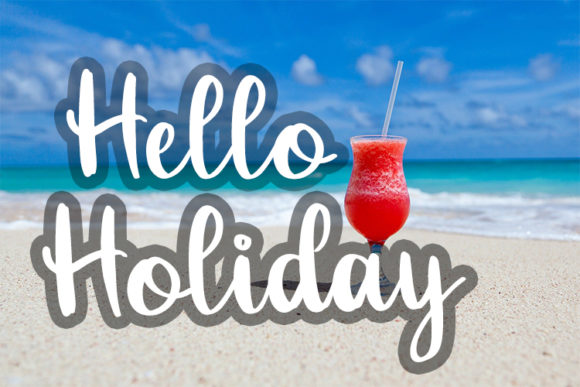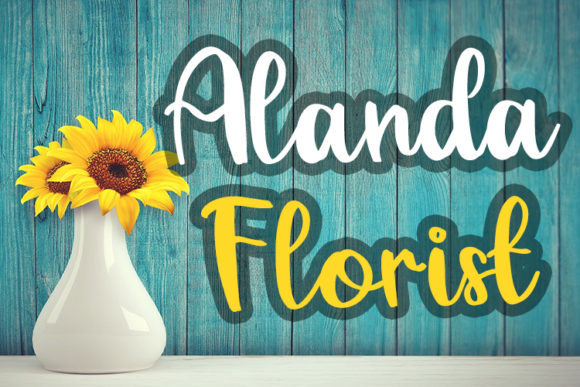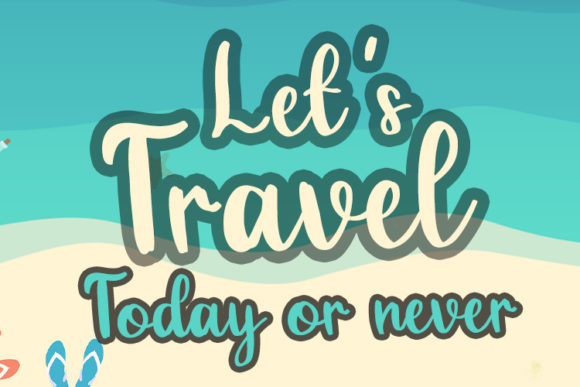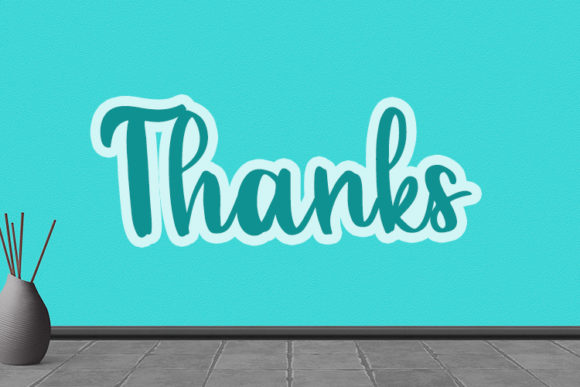
Unlock the Magic of Bluemoon Font
There’s nothing quite like the feeling of being inspired by a new font – the spark of creativity, the rush of ideas, and the excitement to bring them to life. It’s moments like these that remind us why we love designing in the first place. And for us, that spark is often ignited by the whimsical charm of handwritten fonts like the Bluemoon Font.
With its flowing curves and sweet style, the Bluemoon Font is a versatile delight that’s perfect for adding a touch of personality to your designs. Whether you’re working on a wedding invitation, a children’s book, or a social media campaign, this font’s soft, rounded characters are sure to bring a smile to your face and a dash of creativity to your work.
For designers, the Bluemoon Font is a valuable addition to any toolkit – a reliable companion that’s always up for a creative challenge. So why not give it a try and see where the magic of this charming font takes you?
Key Features of Bluemoon Font
- Font Family: Bluemoon Font is a unique, handwritten font with a dreamy and elegant feel.
- Unique Characteristics: Bluemoon Font features a distinctive, swirly design with flowing connections between letters, giving it a whimsical and artistic feel.
Bluemoon Font Review
I’ve had the chance to work with Bluemoon Font, and here’s my honest review.
- ✨ Elegant and sophisticated design, perfect for luxury brands and high-end projects.
- ✨ Excellent legibility, making it suitable for both print and digital applications.
- ✨ Customizable font weights, allowing for flexibility in design.
- ✨ Supports a wide range of languages, making it a great option for global brands.
- ⚠️ Limited font styles and variations, which might limit its versatility.
- ⚠️ May not be suitable for casual or playful designs, as it has a more formal tone.
- ⚠️ Some users might find the font too ornate or distracting, especially in large blocks of text.
Overall, Bluemoon Font is a solid choice for high-end projects that require a sophisticated and elegant design. While it may have some limitations, its strengths make it a great option for brands looking to make a statement.
Alternatives to Bluemoon Font for Designers
Lato Font is a modern sans-serif typeface that is highly legible and versatile. It is ideal for use in body text, headings, and titles, and works well in both digital and print applications. Lato is a great alternative to Bluemoon Font as it offers a similar feel, but with a more modern and sleek aesthetic.
Comparison to Bluemoon Font: While Bluemoon Font has a more elegant and vintage feel, Lato Font is more modern and functional. Lato is also more legible at small font sizes, making it a better choice for body text.
Montserrat Font is a sans-serif typeface that is highly versatile and works well in a variety of applications, from body text to headings and titles. It has a strong, urban feel that is perfect for use in modern designs. Montserrat is a great alternative to Bluemoon Font as it offers a similar level of sophistication, but with a more edgy and contemporary aesthetic.
Comparison to Bluemoon Font: While Bluemoon Font has a more elegant and refined feel, Montserrat Font is more modern and bold. Montserrat is also more suitable for use in digital applications, where its strong lines and geometric shapes can be easily read on screens.
Playfair Display Font is an elegant and luxurious serif typeface that is perfect for use in headings and titles. It has a classic, vintage feel that is reminiscent of 19th-century typography. Playfair Display is a great alternative to Bluemoon Font as it offers a similar level of sophistication and elegance, but with a more refined and polished aesthetic.